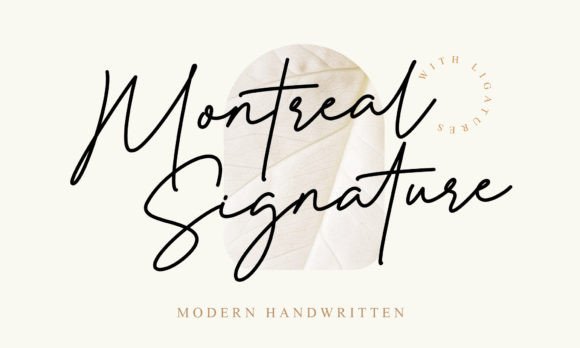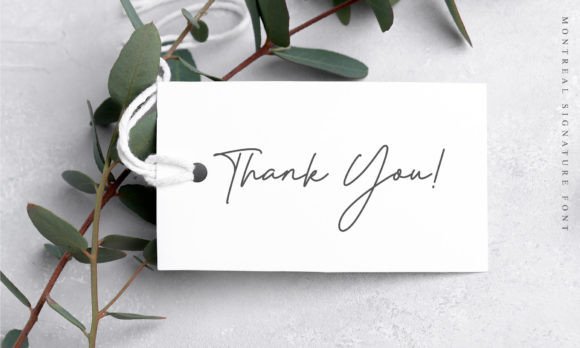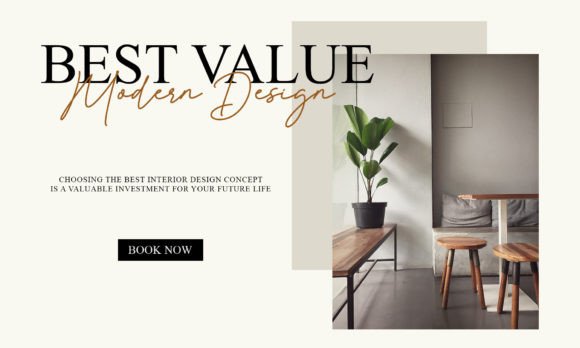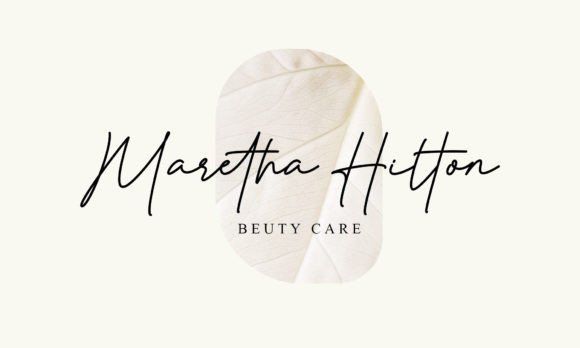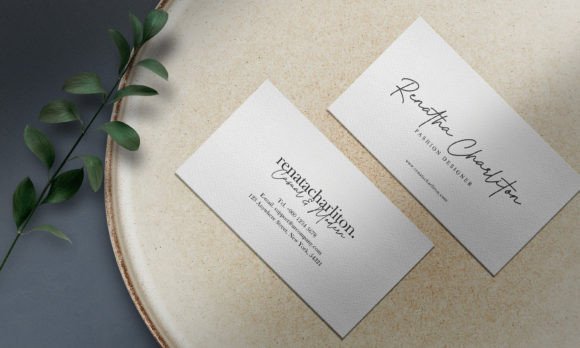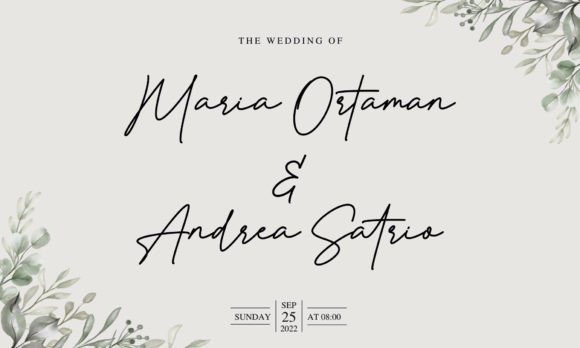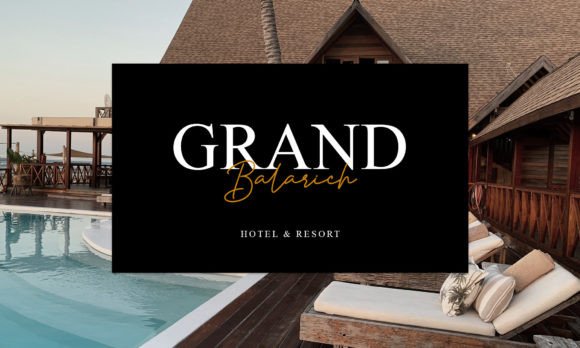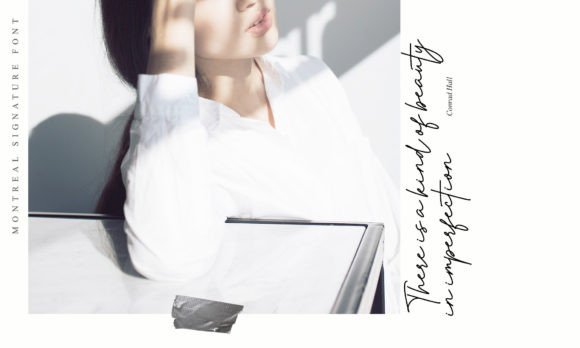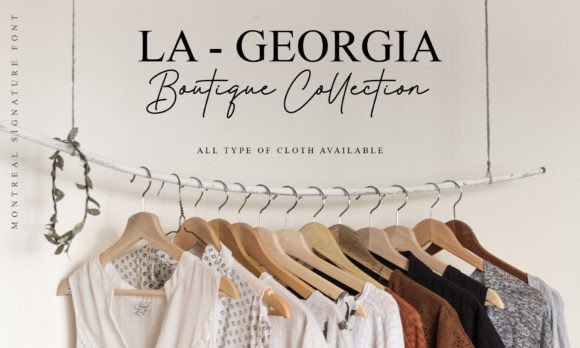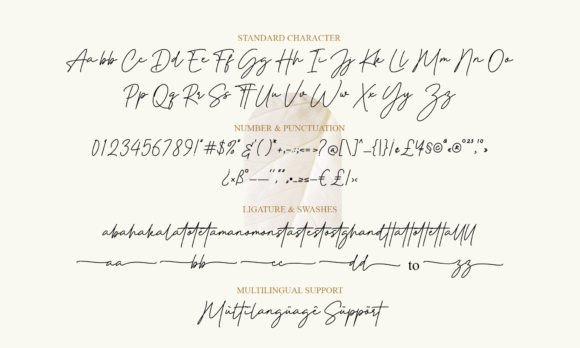
Montreal Signature Font
About Montreal Signature Font
Clean, Thin, and Effortlessly Elegant
If you’re looking for a graceful and modern font, the Montreal Signature Font download is exactly what you need. Designed with thin, smooth strokes, this signature-style script adds elegance to any design without being overly complex. It blends simplicity with sophistication for a high-end look.
Perfect for Multiple Uses
Montreal Signature is a versatile choice for many creative projects, such as:
• Wedding invitations and save-the-date cards
• Modern logos and luxury branding
• Elegant packaging and product labels
• Fashion magazines, editorials, or blogs
• Social media graphics and content
Whether you’re working on a formal layout or a soft, personalized message, this font will elevate your design effortlessly.
Fully Accessible with PUA Encoding